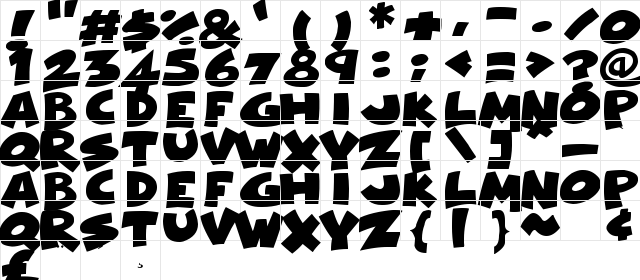
Comical Cartoon Regular
Design Context for Comical Cartoon Typeface
Comical Cartoon trades formality for fun, with bouncy, characterful letterforms that bring warmth and energy to any project.
Font Pairing: Pairs well with a rounded or humanist sans for body copy, maintaining the friendly tone without relying on Comical Cartoon to carry extended reading.
Pro Tip: Use Comical Cartoon at larger display sizes where its expressive character can land. Pair with a clean, simple sans for body copy to maintain readability.